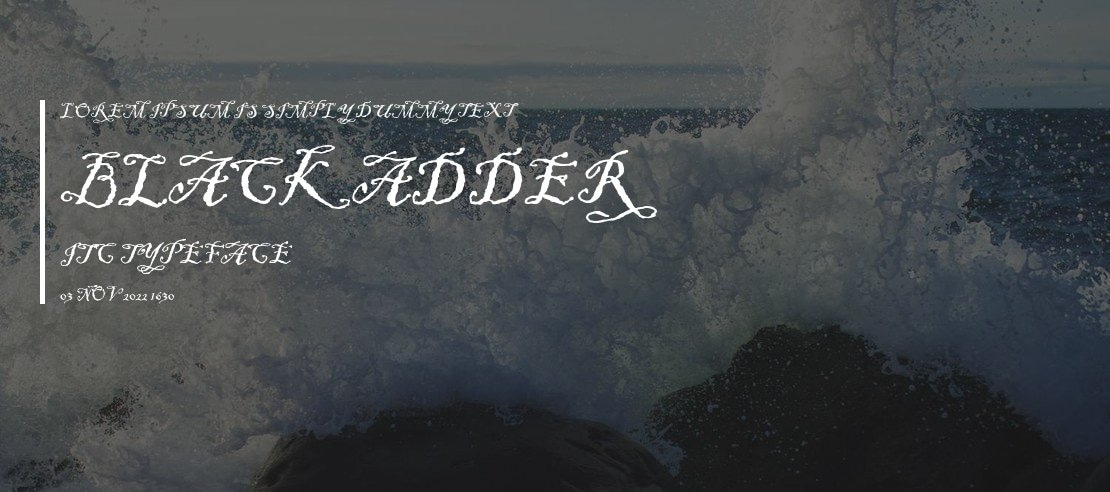
ITC Blackadder Font is perfect for medieval fantasy novels, historical drama productions, Gothic horror materials, dark fantasy gaming interfaces, ancient manuscript reproductions, witchcraft-themed designs, medieval restaurant menus, period piece movie titles, dark academia branding, and mysteriously medieval marketing communications.
ITC Blackadder Font is exciting because it embodies the dark wit and sophisticated cunning of medieval intrigue with its dramatically angular letterforms that seem carved from castle stones and carry the sharp intelligence of court conspirators who navigate treacherous political waters with deadly precision. Its wickedly clever character design reflects both the brutal elegance of medieval power struggles and the sardonic humor that makes darkness bearable, making it perfect for brands seeking to convey sophisticated darkness and intelligent mischief.
ITC Blackadder Font family includes regular weight with distinctive medieval characteristics, along with period-appropriate ornaments, Gothic ligatures, historical symbols, and dark decorative elements. The font family also features authentic medieval styling, manuscript-inspired details, and court intrigue aesthetics that enhance its historically dark appeal and sophisticated versatility.
This cleverly sinister typeface represents the perfect fusion of medieval authenticity and sophisticated darkness. ITC Blackadder Font Free Download allows designers to explore its medieval possibilities before making a commercial commitment. The font's ability to convey both historical gravitas and dark humor makes it ideal for entertainment companies, publishing houses, and creative brands targeting audiences fascinated by medieval history and sophisticated darkness.
Whether you're developing historical entertainment identities, creating medieval-themed materials, or designing dark fantasy communications, ITC Blackadder Font brings an unmistakable sense of medieval cunning and sophisticated darkness to every project. Its wickedly intelligent character and medieval heritage create powerful connections that captivate audiences seeking authentic historical atmosphere and cleverly dark entertainment.
The font's versatility excels in entertainment and publishing environments where historical atmosphere and sophisticated darkness are essential. Its medieval character makes it particularly effective for fantasy publishers, historical entertainment venues, gaming companies, and cultural institutions seeking to establish authentic relationships with audiences passionate about medieval history and dark fantasy experiences.
For designers working on projects requiring genuine medieval character and dark appeal, ITC Blackadder Font provides an exceptional solution. Its cleverly sinister presence and comprehensive medieval elements offer the tools needed for creating truly atmospheric communications, while its sophisticated darkness ensures your designs capture the intelligent cunning and historical authenticity that defines the most compelling medieval entertainment and dark fantasy experiences.